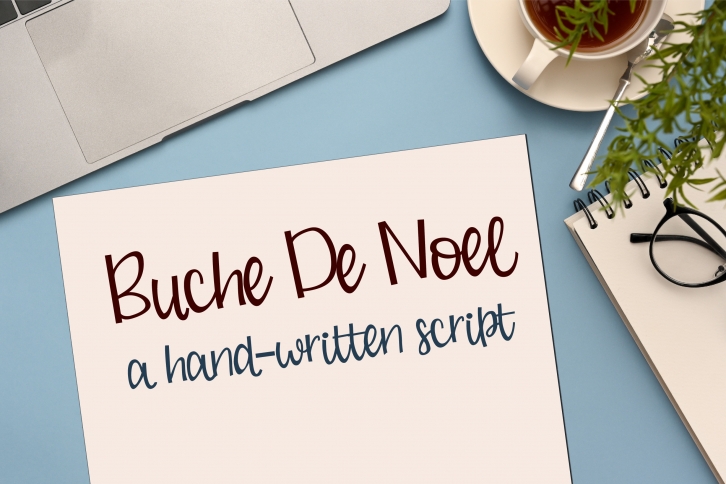
Buche De Noel is a chic, fun and quirky handwritten font. It is perfect for product packaging, branding project, magazine covers, social media, wedding, or just used to express words above the background.